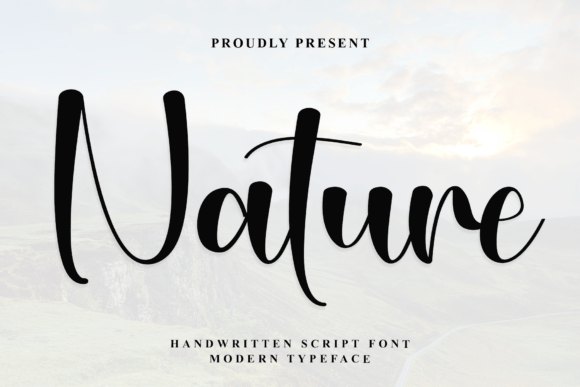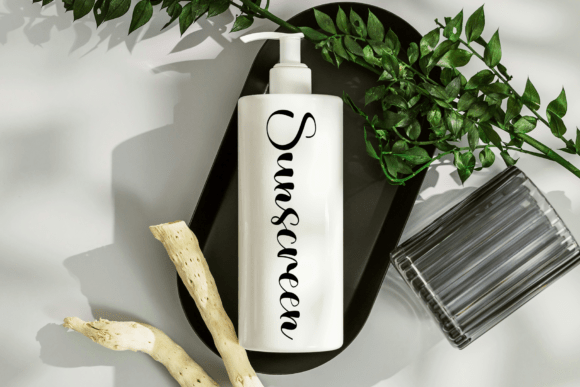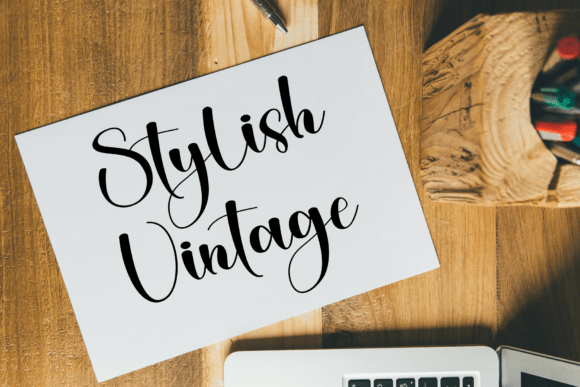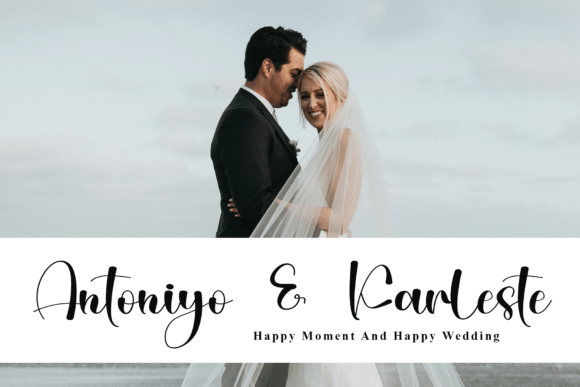
Nature Font
About the Nature Font
The Nature Font is here to transform your projects with its distinctive character and style. Nature is a delicate handwritten font carefully crafted for a cool and unique design. This font can be used to write letters, invitations, food products, titles, and more.
Nature excels in projects requiring a touch of handcrafted elegance; think wedding invitations, branding for artisanal food products, or short, impactful headlines. Its delicate nature makes it unsuitable for body text or UI elements where readability is paramount. Long paragraphs set in Nature would be difficult to decipher.
Its core personality is undeniably soft and friendly, yet subtly sophisticated. This makes it an ideal choice for brands conveying warmth and authenticity.
Pair Nature with a clean sans-serif like Lato or Open Sans for a balanced contrast, or a classic serif such as Garamond or Playfair Display for a more traditional feel. Avoid pairing it with overly bold or geometric fonts, as this could clash with its delicate strokes.
Nature Font Usage Examples
Nature Font Example